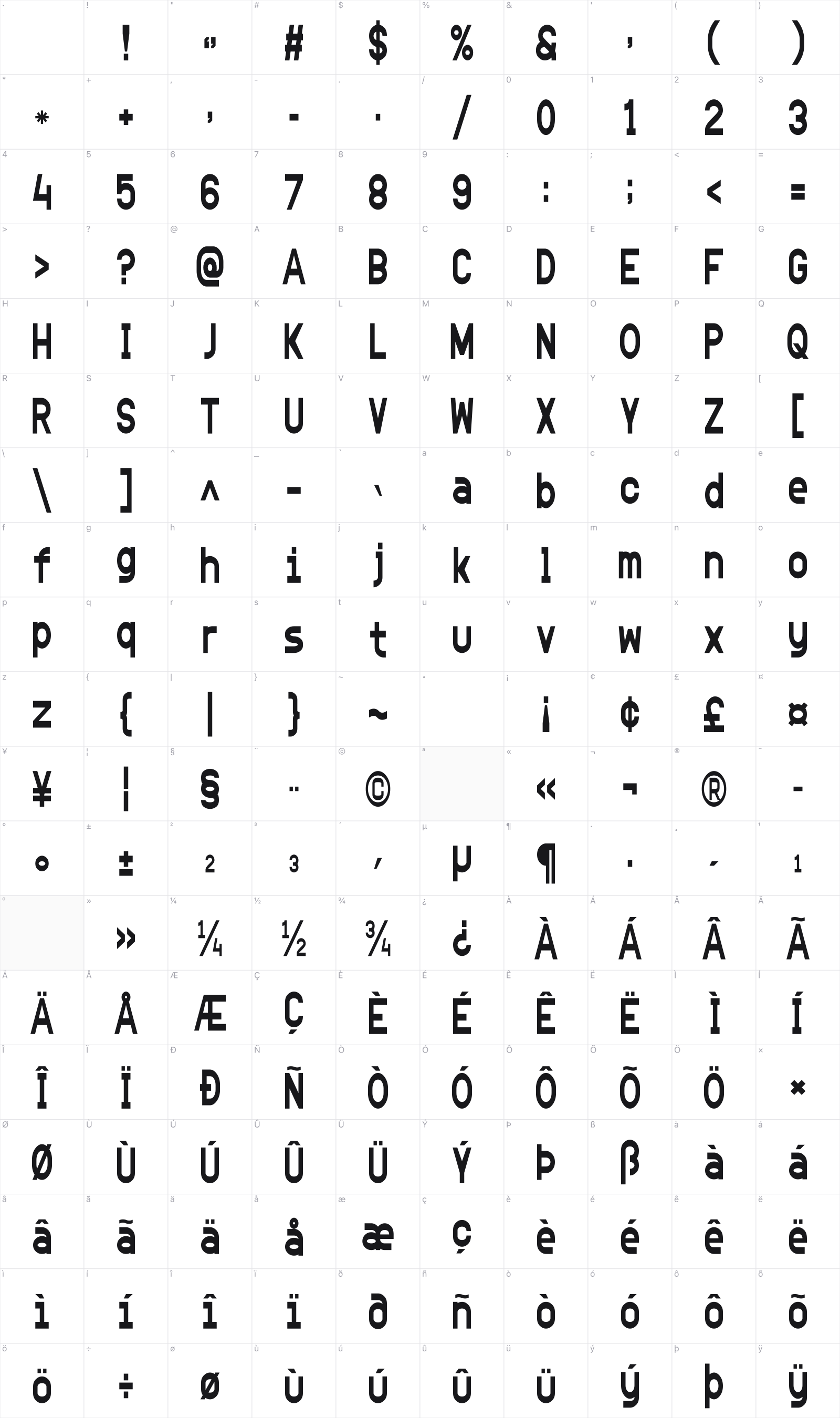
Elevatia
Elevatia is a bold monospace sans with a heavy, square-set construction and subtly rounded interior corners. The uniform stroke weight and fixed-width rhythm give it a confident, mechanical quality without feeling cold. It works well for headlines, tech branding, and anywhere a strong typographic voice is needed.